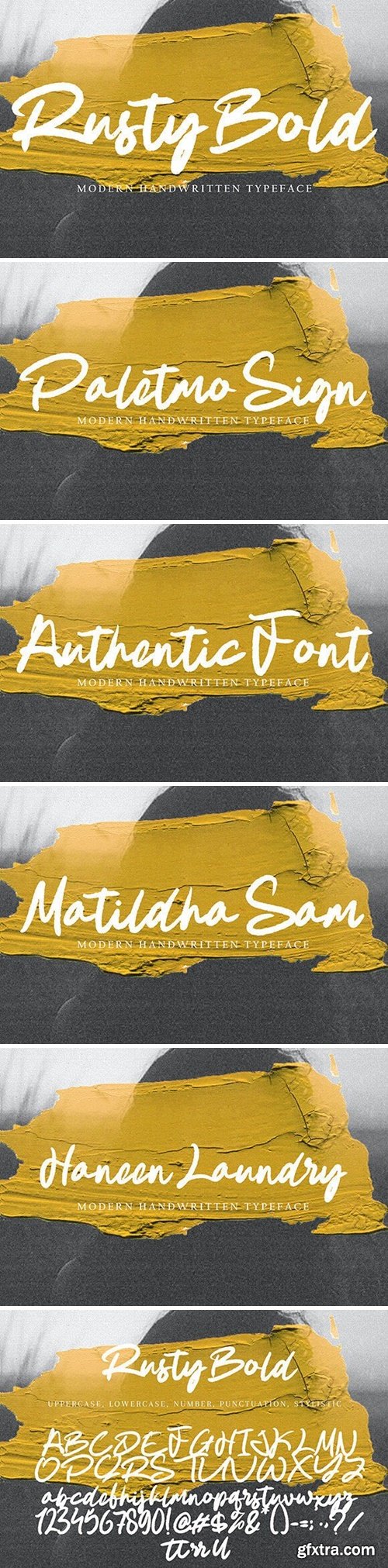
Rusty Bold with new style, this font will perfect for many different project ex: quotes, logo, blog header, poster, banding, letter, invitation, stationery, etc…